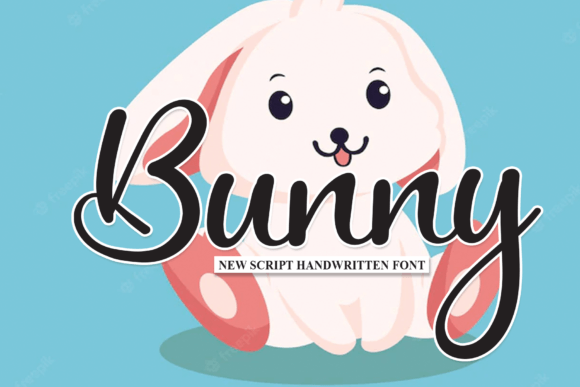
Brightening Up Your Designs with Bunny Font
Remember that moment when you stumbled upon the perfect font, and your design suddenly came alive? For me, it was when I first laid eyes on Bunny Font. Its whimsical, handwritten charm immediately put a smile on my face, and I knew I had to learn more about this delightful font.
Bunny Font is a sweet and friendly handwritten font, perfect for adding a joyful touch to your designs. Whether you’re crafting wedding invitations, cards, or any other project that needs a dash of fun, this font is sure to bring a smile to your face and your audience’s. Its relaxed vibe makes it an invaluable asset for designers looking to infuse their work with a sense of playfulness and warmth.
Bunny Font Key Features
- Unique Characteristics: Bunny Font features a playful, cursive script with a distinctive bunny ear design, adding a whimsical touch to any text.
- Kerning and Ligatures: The font includes advanced kerning and ligature features, ensuring smooth and elegant text rendering.
Bunny Font Review
As a designer, I was excited to dive into the “Bunny Font” and see if it lived up to its adorable name. Overall, I’d say it’s a fun and quirky addition to any design project.
- Playful feel: The bunny-inspired design elements give this font a lighthearted and approachable vibe.
- Variety of weights: The font comes in a range of weights, from light to bold, which makes it versatile for different design applications.
- Legibility: Despite its playful nature, the font is surprisingly easy to read, even at smaller sizes.
- Limited language support: I found that the font doesn’t support many non-Latin languages, which might limit its use in global design projects.
- Not suitable for formal designs: The playful feel of the font might not be suitable for formal or professional designs, where a more serious tone is needed.
Overall, I think the “Bunny Font” is a fun and creative addition to any design project, but it’s essential to consider its limitations when deciding whether to use it.
Bunny Font is ideal for:
- Cartoon-style graphics and illustrations.
- Playful advertising and marketing materials.
Tips for Getting the Most Out of Bunny Font
To get the most out of Bunny Font, remember:
- Use it in moderation to avoid overwhelming the design.
- Pair it with other playful fonts for a cohesive look.
Alternatives to “Bunny Font” for Designers
Cute Font
Cute Font is a playful, cursive script font that is perfect for adding a whimsical touch to designs, particularly for children’s products, greeting cards, and party invitations.
Compared to Bunny Font, Cute Font has a more rounded and delicate appearance, making it suitable for feminine and youthful designs.
Great Vibes is a modern, cursive script font that conveys a sense of elegance and sophistication. It’s ideal for designs that require a touch of luxury, such as high-end branding, wedding invitations, and fine art prints.
Unlike Bunny Font, Great Vibes has a more refined and mature appearance, making it suitable for professional and upscale designs.
Carolyna Pro is a sophisticated, script font that is perfect for designs that require a touch of elegance and sophistication. It’s ideal for branding, advertising, and editorial content.
Compared to Bunny Font, Carolyna Pro has a more refined and luxurious appearance, making it suitable for high-end designs that require a sense of sophistication.